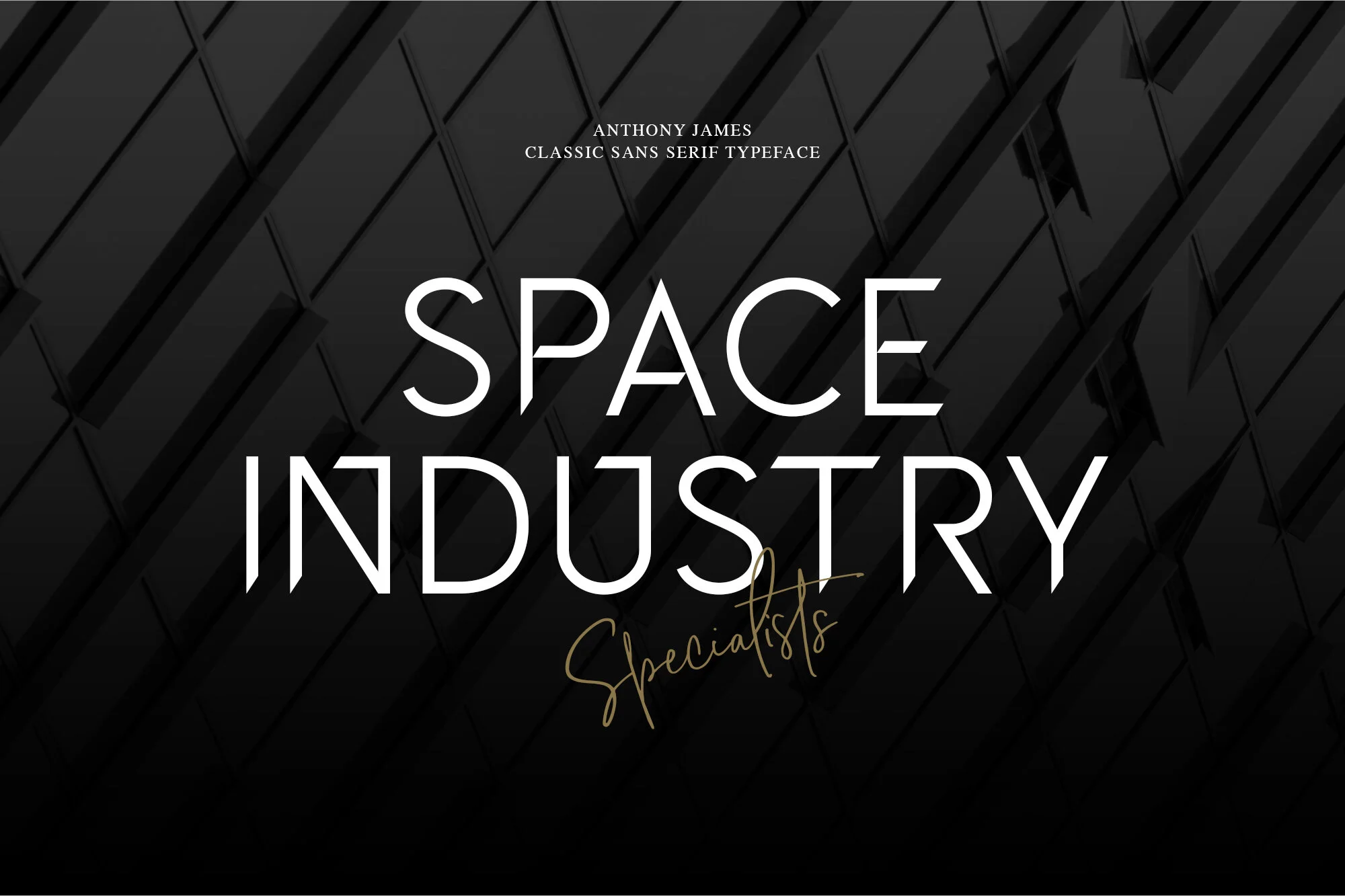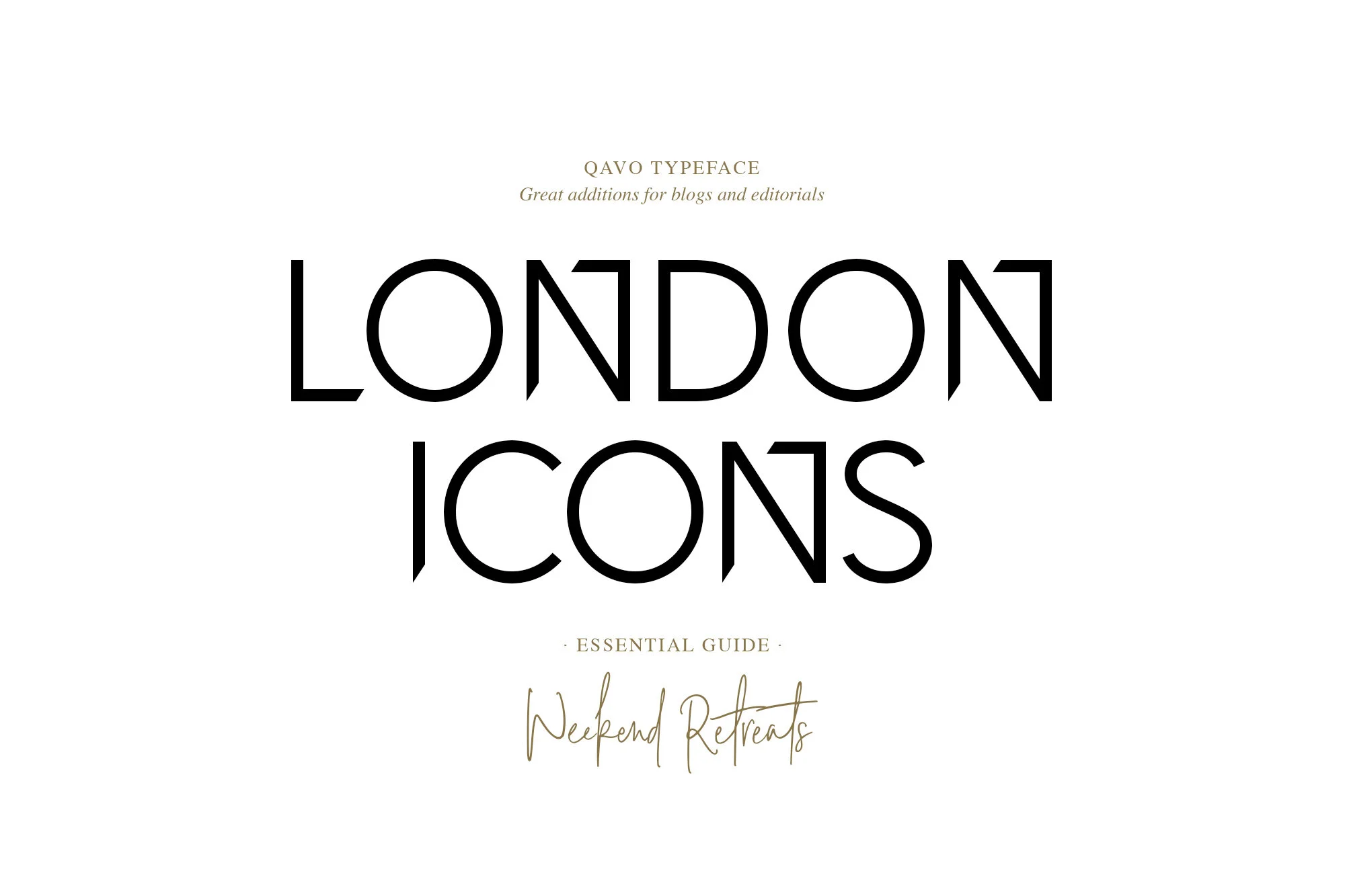
Qavo
Qavo is a Classical Sans Serif Typeface. A sharp well-balanced geometric typeface, very legible and easy to use. Qavo houses a creative collection of Opentype Ligatures, which blend in beautifully with the fonts natural style and structure.